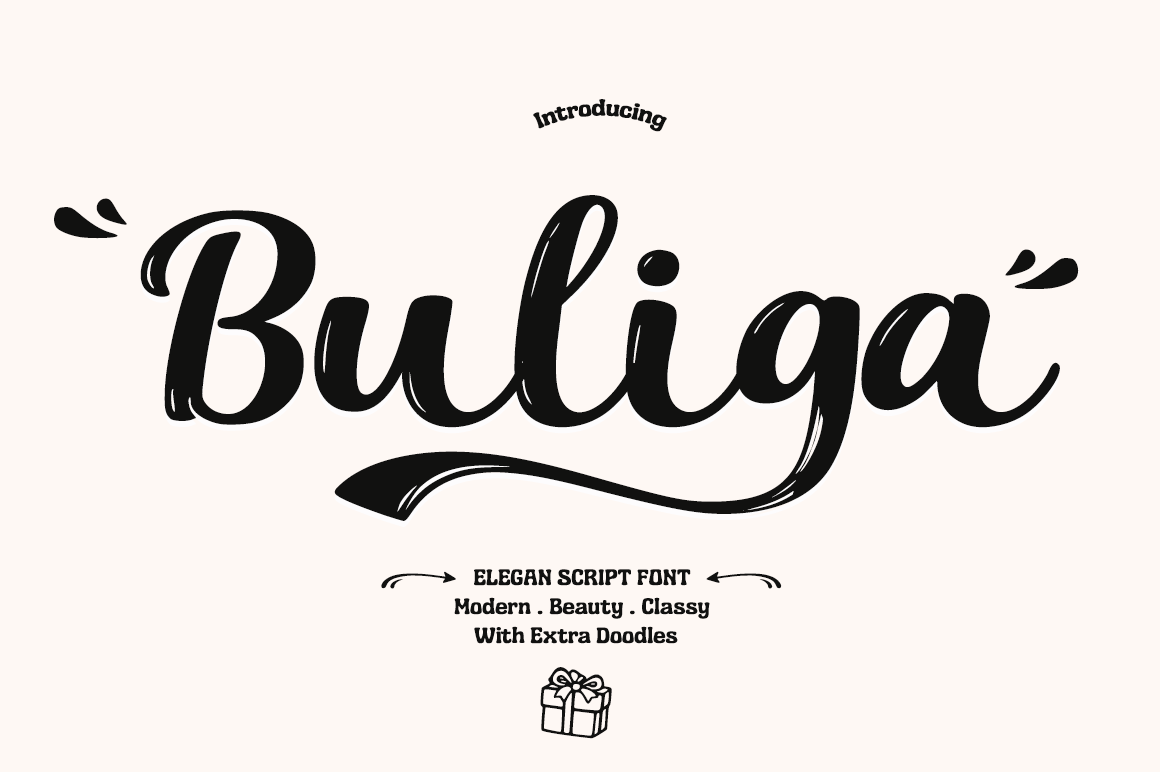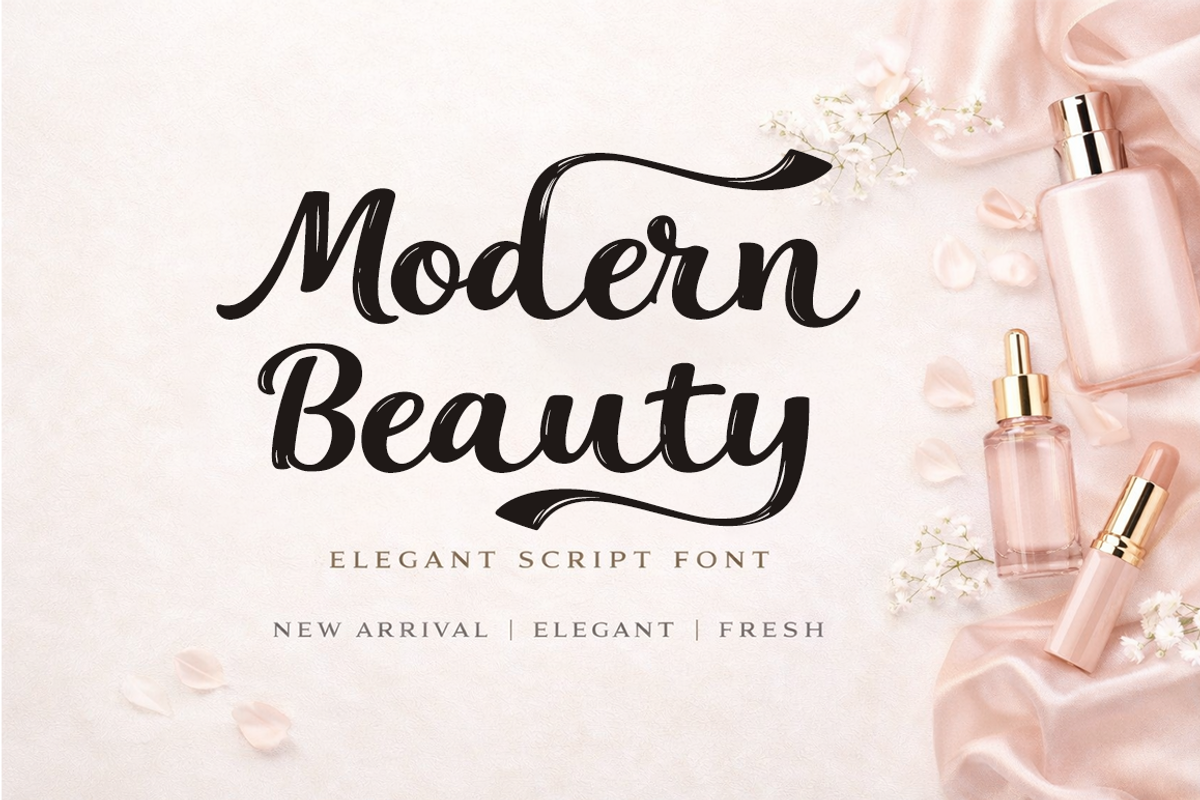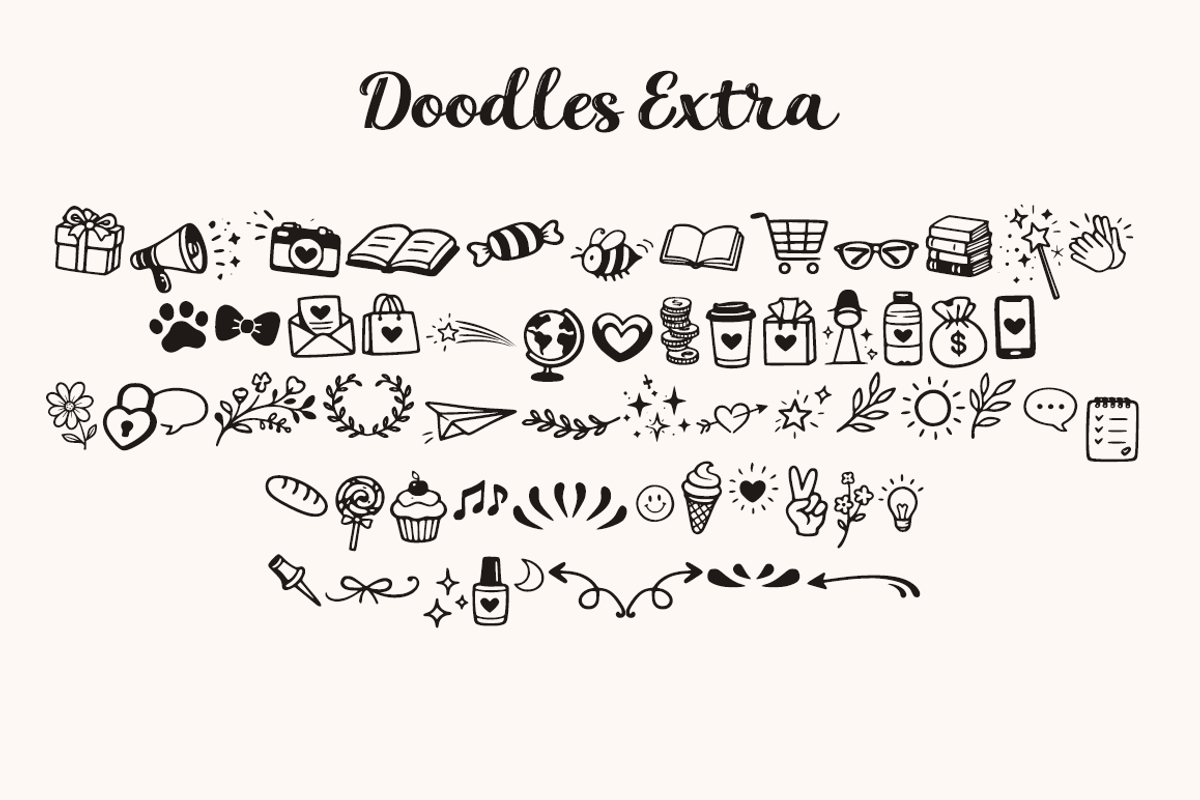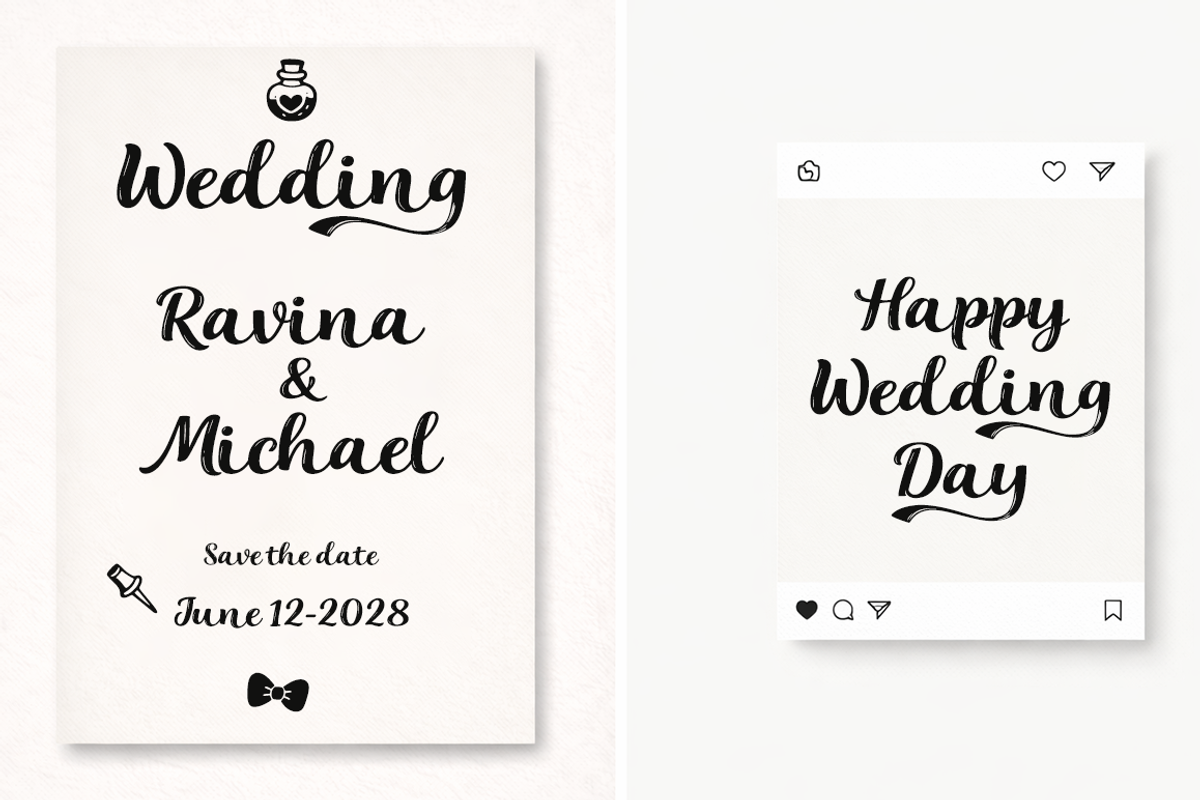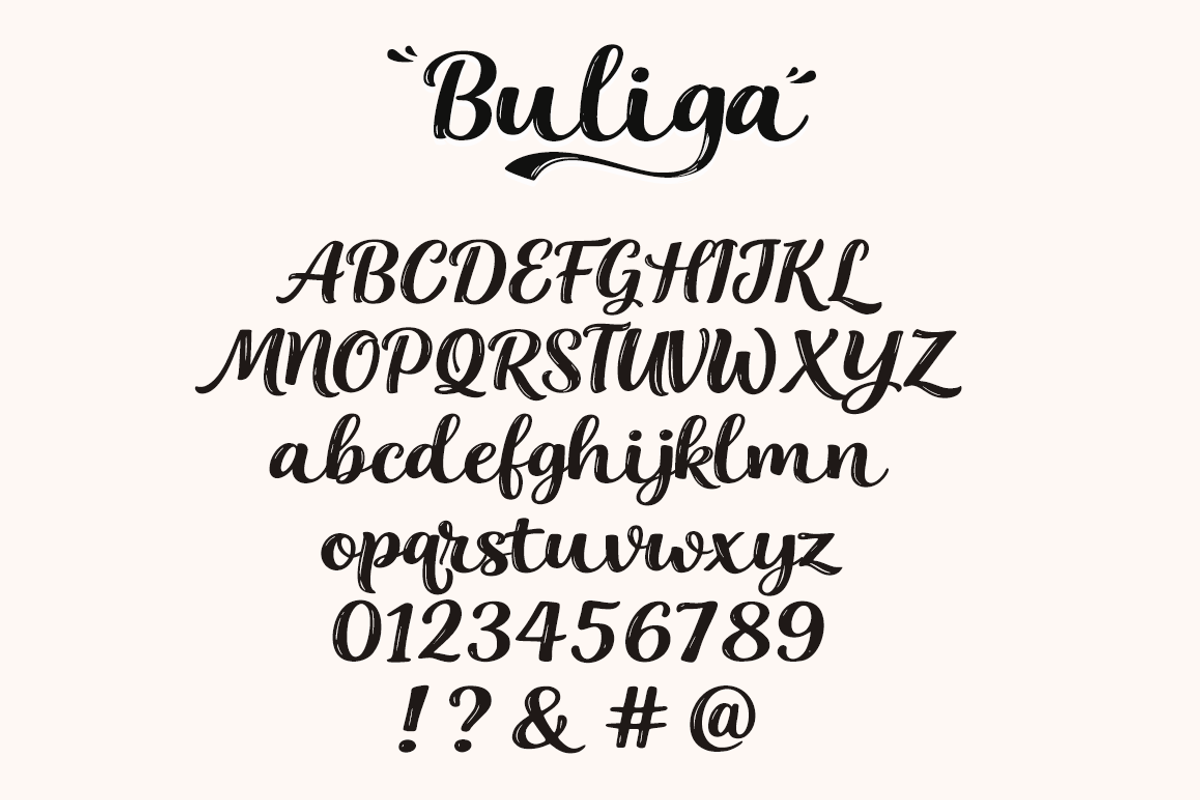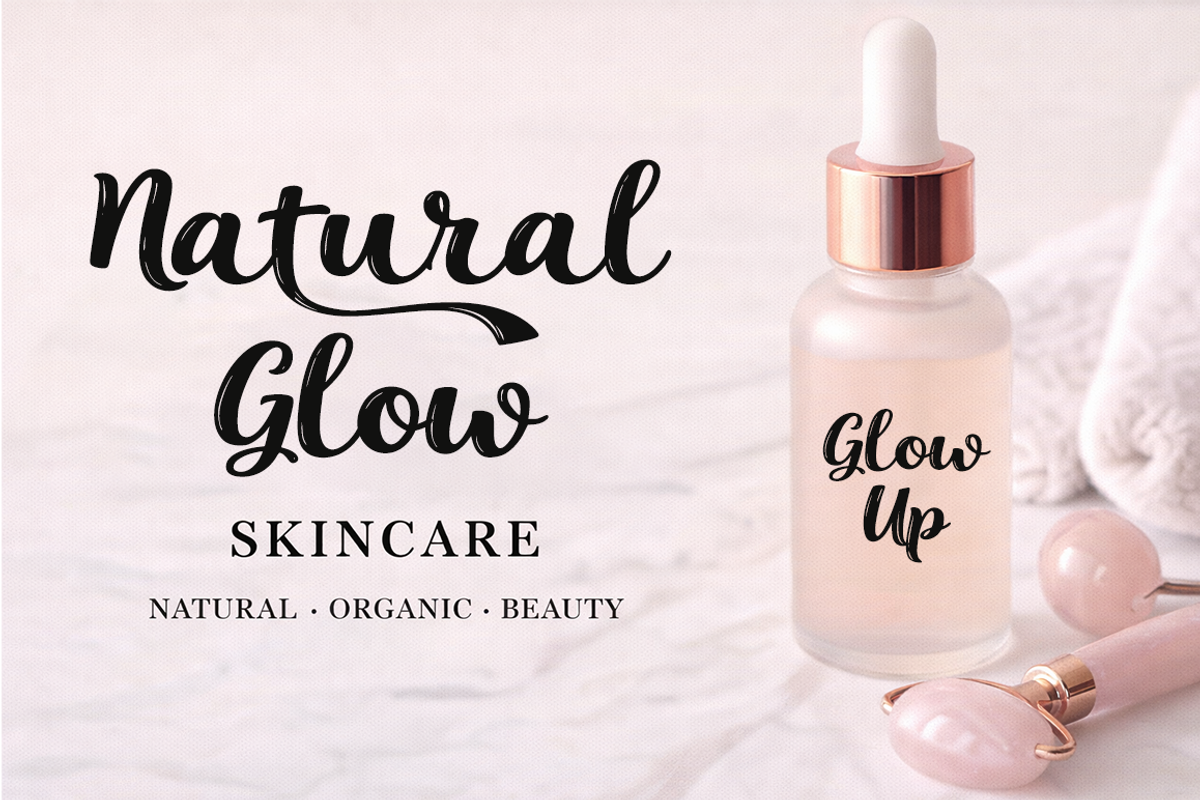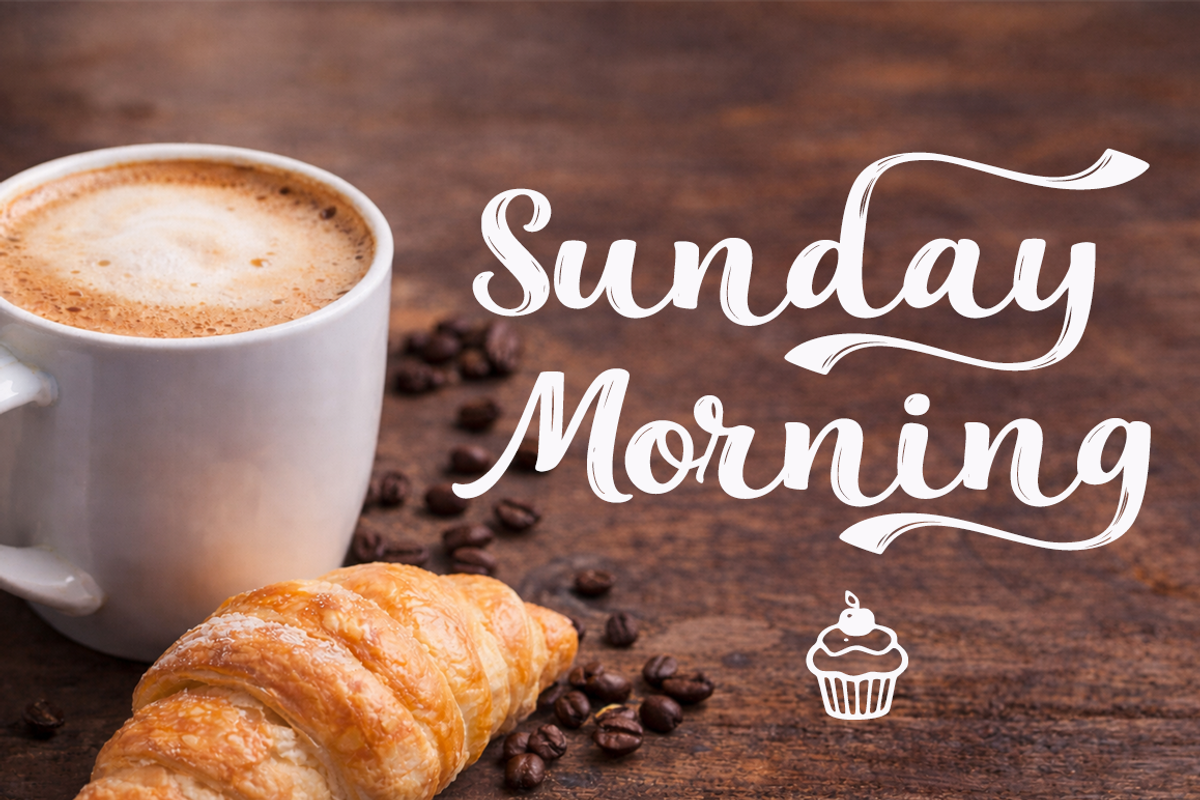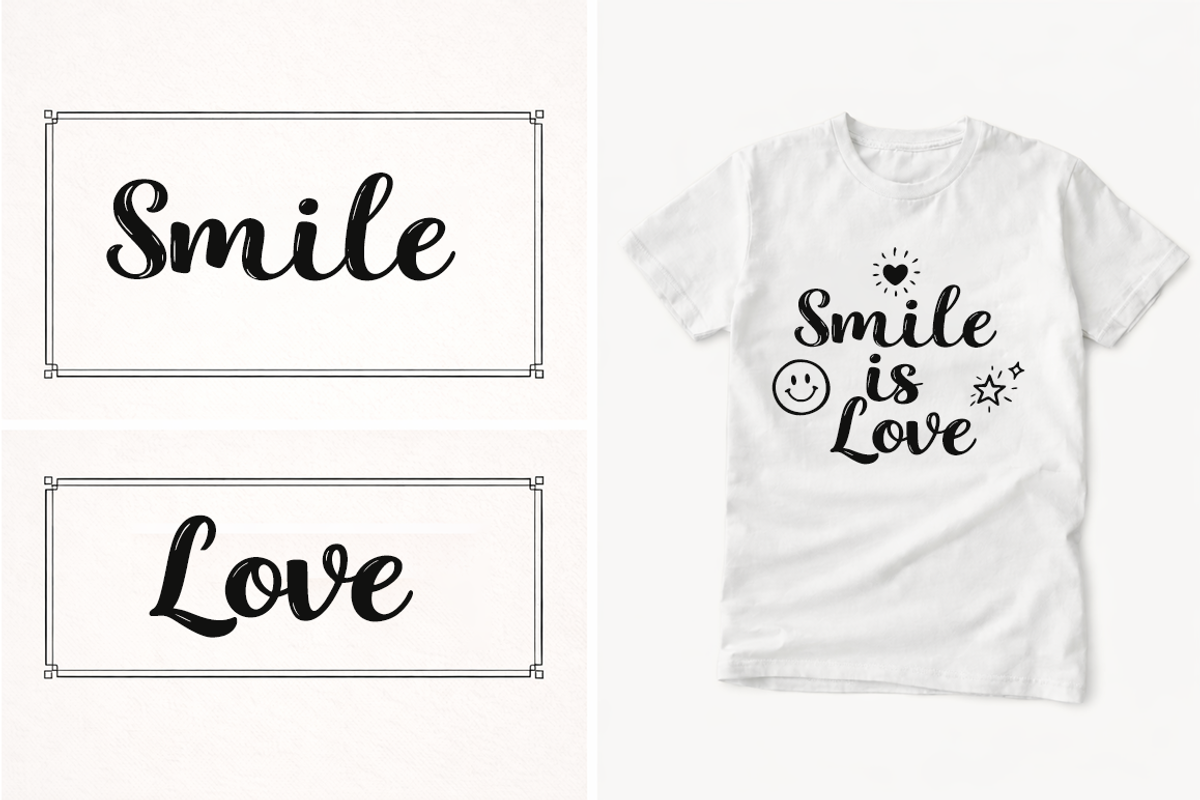
Buliga – Elegant Script Font
Buliga is an elegant script font with a modern and classy touch. Designed with balanced thick and thin strokes, it delivers a strong, clean, and distinctive appearance. The smooth curves and flowing letterforms create a natural rhythm, while extra swashes and doodle elements add decorative charm to the design.
This font is ideal for projects that require a stylish, elegant, and premium typographic look.
✨ Features
Elegant script style Modern & classy design Smooth curves with natural flow Bold, clear, and easy to read Extra doodles & decorative elements Suitable for digital and print use
🎯 Perfect For Logo and branding Posters and flyers T-shirt designs Packaging design Wedding invitations Social media content Quotes and typography artwork
💡 Style Impression
Modern • Elegant • Classy • Playful • Premium